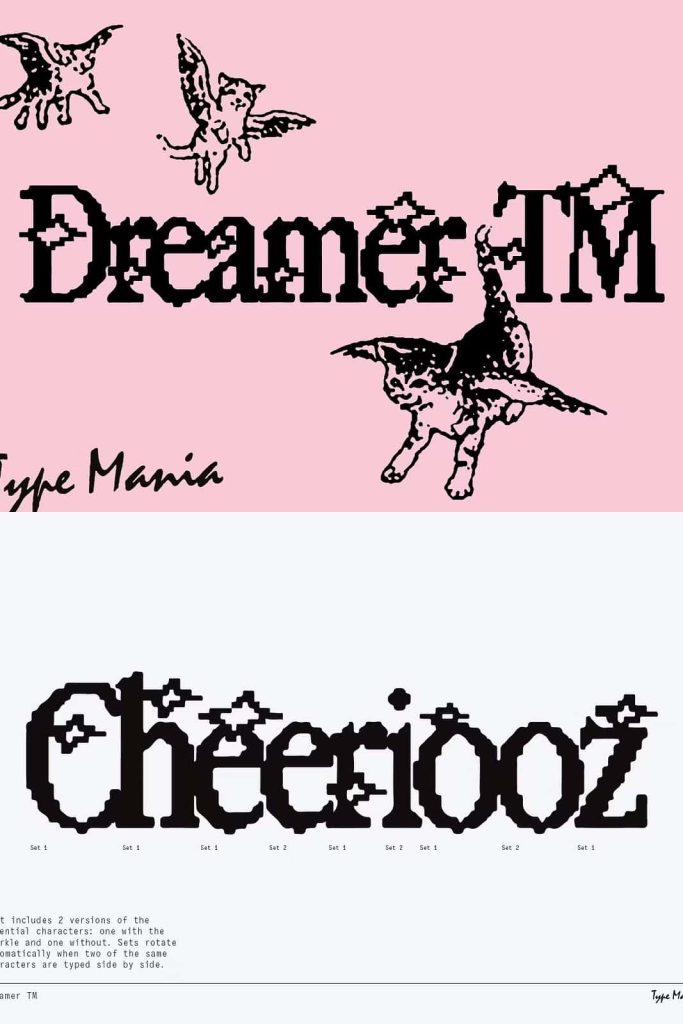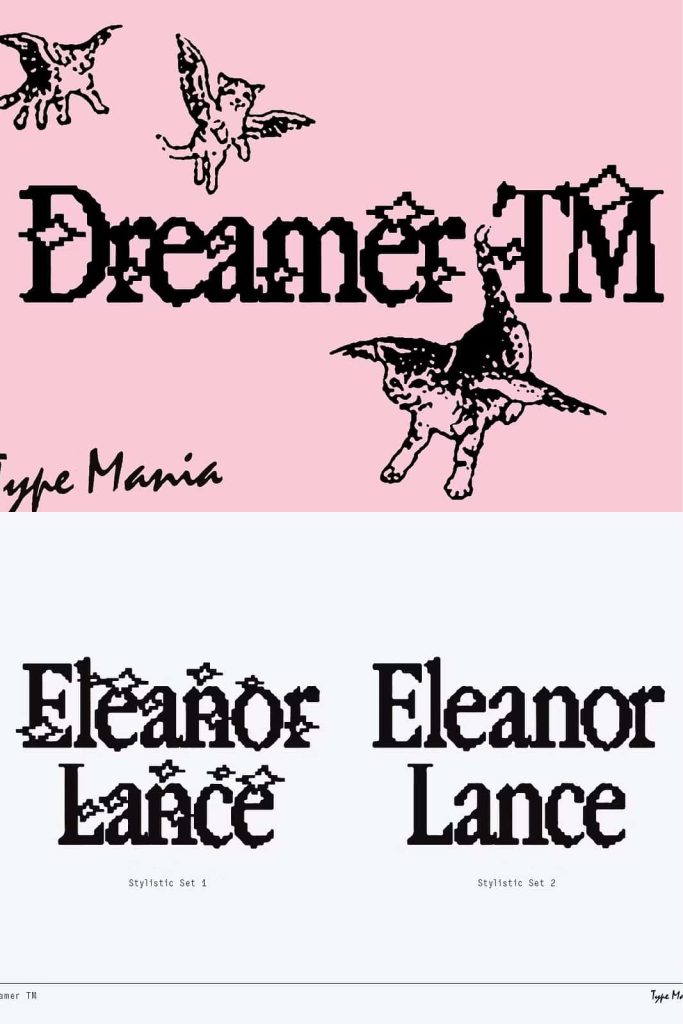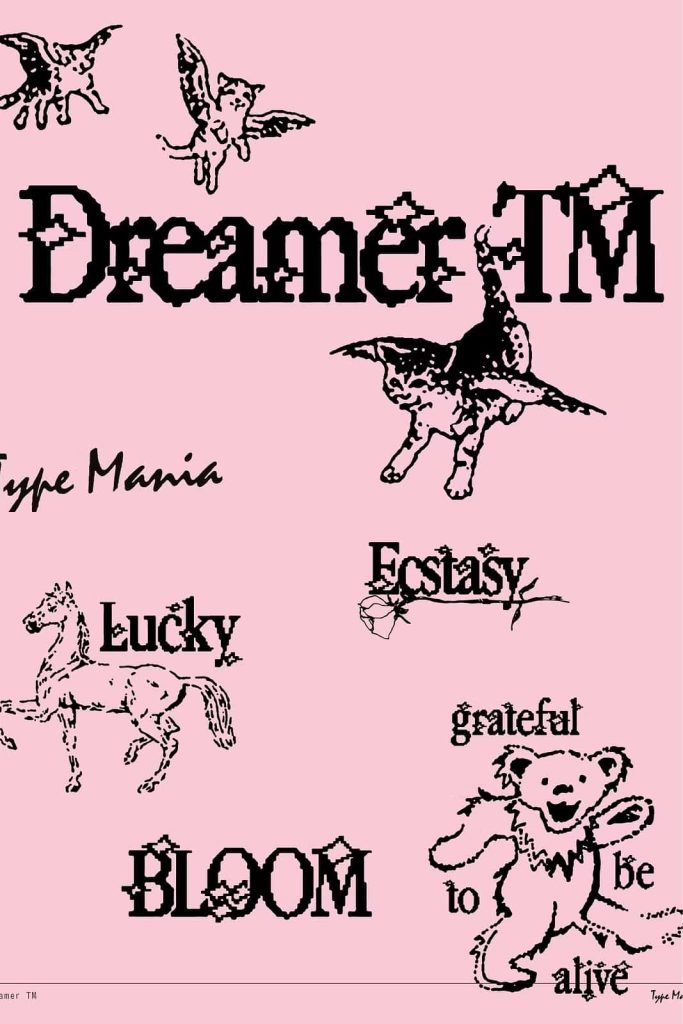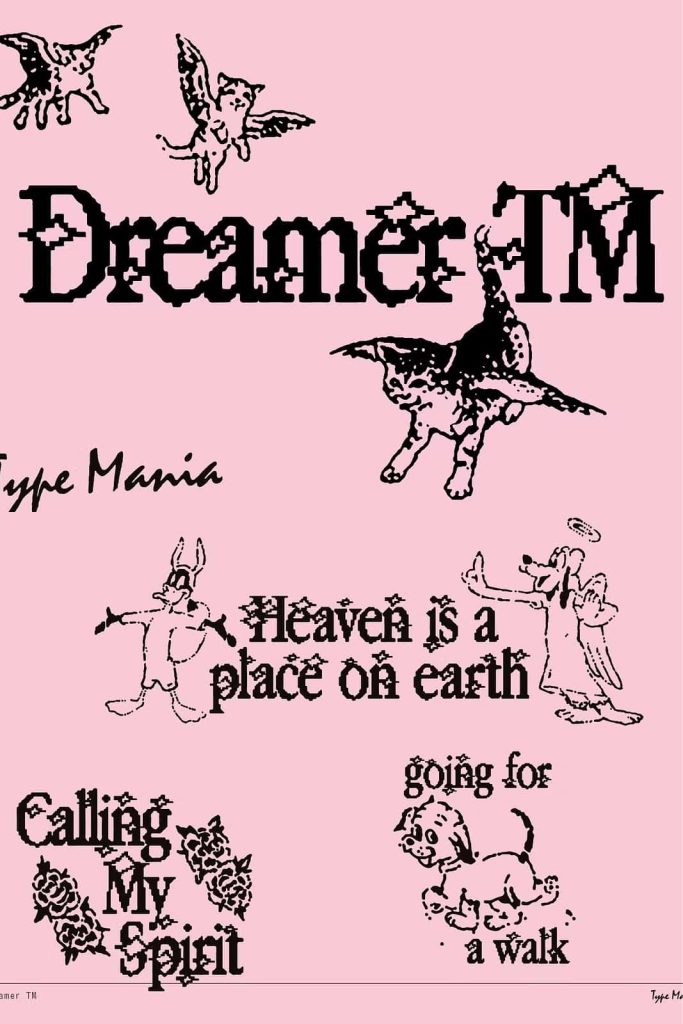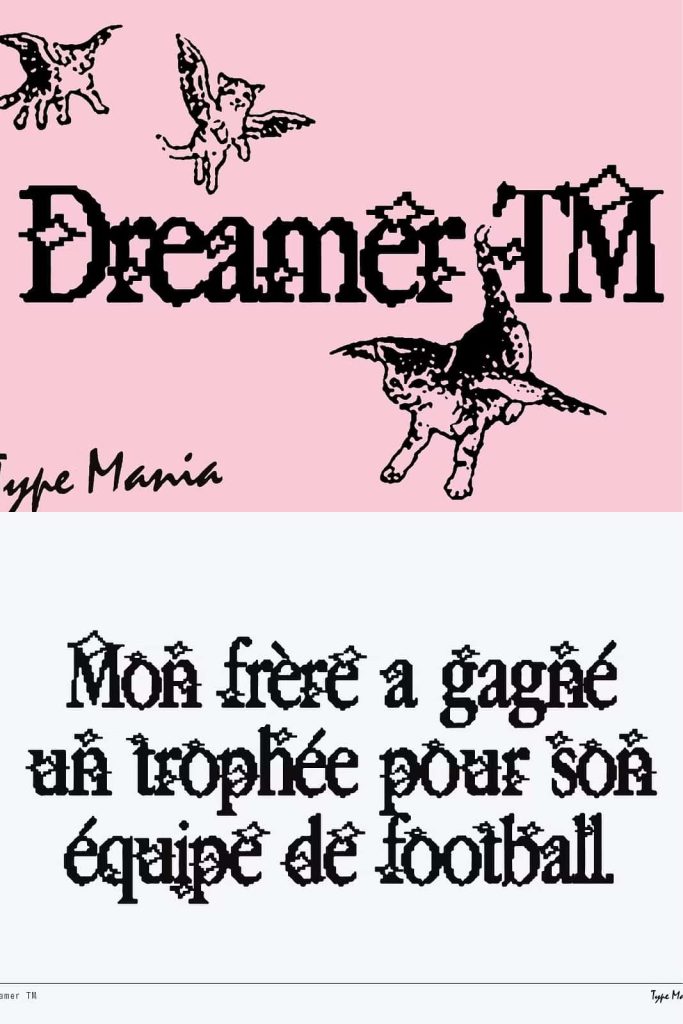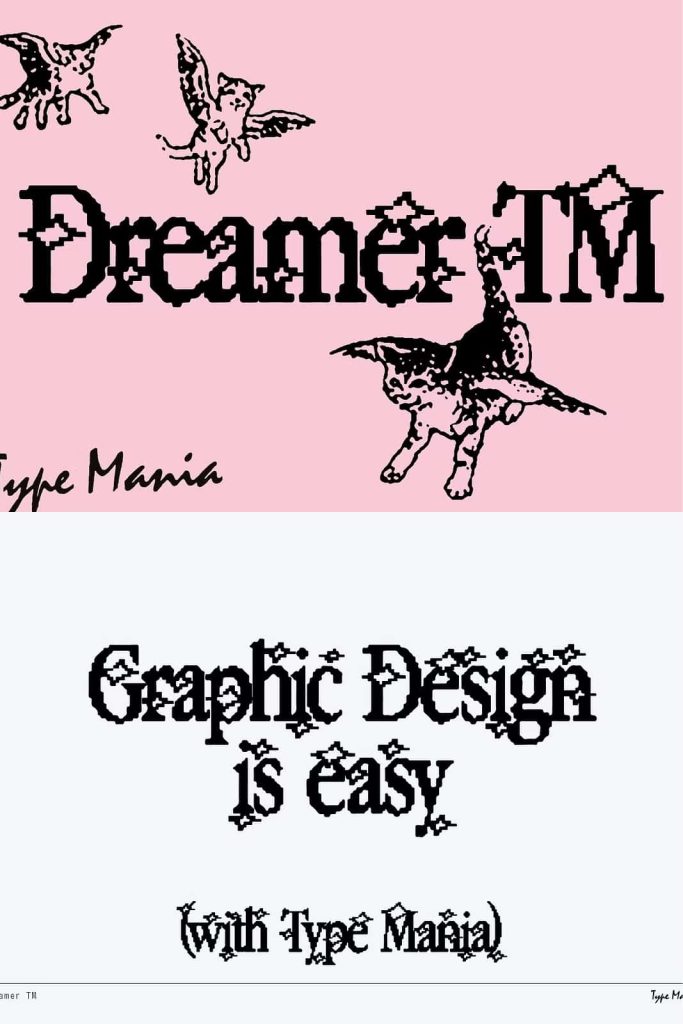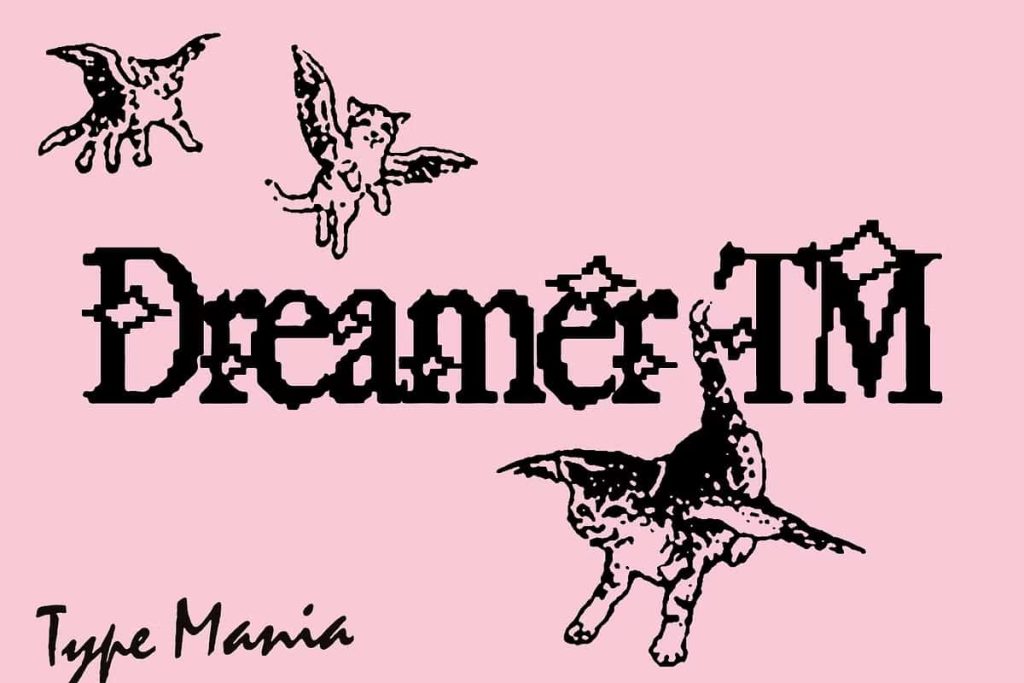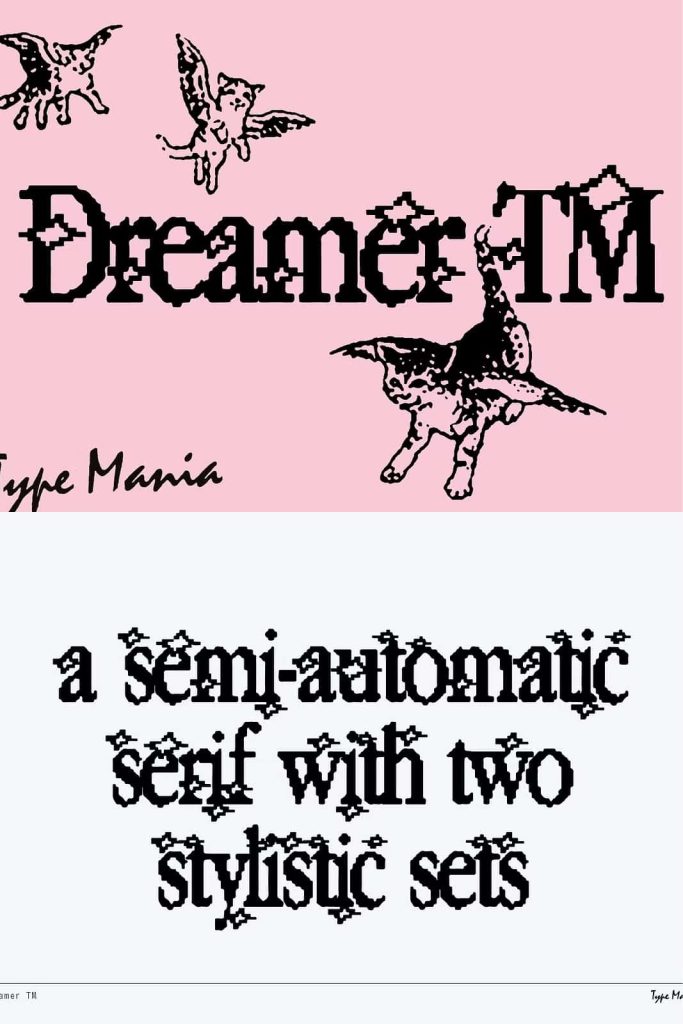
Dreamer TM Serif Font – Bold, Emotive, and Inspired by Y2K Aesthetics
Dreamer TM is an emotive serif font designed to capture the expressive energy of the Y2K aesthetic. With its nostalgic charm and bold character, this typeface brings a modern yet retro feel to your creative projects. Whether you’re crafting posters, logos, or branding materials, Dreamer TM adds an edgy, stylish twist that stands out from the crowd. It’s a font made for designers who want to blend emotion, nostalgia, and contemporary design into one captivating typeface.
A Nostalgic Typeface Reimagined for Modern Creativity
Dreamer TM takes inspiration from the early 2000s—an era defined by bold graphics, futuristic shapes, and expressive typography. Every curve and serif in this font is designed to channel that nostalgic Y2K spirit while keeping it refined and relevant for today’s design trends. Its structure merges classic serif sophistication with a raw, emotive energy that evokes creativity and confidence.
Unlike traditional serif fonts, Dreamer TM plays with form and balance, introducing subtle quirks that give it personality. This balance of elegance and edge makes it ideal for modern projects that celebrate individuality and artistic freedom. Whether you’re designing a music poster, fashion magazine, or experimental logo, Dreamer TM turns every composition into a visual statement.
Perfect for Posters, Logos, and Nostalgic Branding
Dreamer TM shines across a variety of creative applications. In poster design, it commands attention with its dramatic letterforms and expressive rhythm, creating visuals that feel both bold and emotional. For logos and branding, its nostalgic influence brings a sense of story and personality to your visual identity. Its distinctive serif structure communicates trust and creativity, making it ideal for lifestyle, music, and fashion brands that want to express individuality.
Dreamer TM also works beautifully in editorial layouts, social media content, and packaging design. Its versatility ensures that it can adapt to different tones—edgy, romantic, futuristic, or artistic—depending on how it’s styled. Use Dreamer TM to inject character into your typography and set a mood that resonates with your audience.
Emotive Design with Y2K Attitude
At its core, Dreamer TM is more than just a font—it’s a design experience. The Y2K-inspired aesthetics bring a mix of optimism, creativity, and rebellion, which defined the early digital age. Dreamer TM captures that mood perfectly with strong contrasts, fluid shapes, and an expressive design language that reflects emotion and individuality. Its serif details add sophistication, while its unconventional proportions introduce a sense of motion and energy.
This combination makes Dreamer TM an excellent choice for designers looking to evoke emotion and nostalgia while keeping their work bold and contemporary. Each character feels alive, as though drawn from the dreams and digital experiments of a new millennium.
Why Choose Dreamer TM Serif Font
- Y2K-Inspired Design: Captures the nostalgic, futuristic vibe of early 2000s aesthetics.
- Emotive Serif Style: Balances expressive emotion with elegant serif structure.
- Versatile Application: Perfect for posters, logos, branding, and editorial layouts.
- Bold and Memorable: Designed to make an impact and evoke a lasting impression.
- Modern Nostalgia: Combines retro influence with a clean, contemporary twist.
Elevate Your Designs with Expressive Energy
With Dreamer TM Serif Font, you can transform your designs into visual stories that connect emotionally with your audience. Its Y2K flair and handcrafted sophistication bring a perfect balance of old-school nostalgia and modern artistry. Whether used as a headline typeface or a statement logo, Dreamer TM delivers a sense of movement, rebellion, and creativity that defines bold design.
Every letter in Dreamer TM has been thoughtfully designed to express individuality and rhythm. The result is a typeface that feels human, energetic, and endlessly adaptable—perfect for projects that want to stand out with a distinct voice.
Dreamer TM Serif Font redefines expressive typography for the modern era. Its emotive style, inspired by Y2K design culture, makes it an exceptional choice for creators who value nostalgia, edge, and sophistication. Whether you’re working on posters, logos, or branding projects, Dreamer TM brings a unique personality that elevates your message. Let your imagination run free and give your designs the emotional power they deserve with Dreamer TM—a serif font that dreams in style.